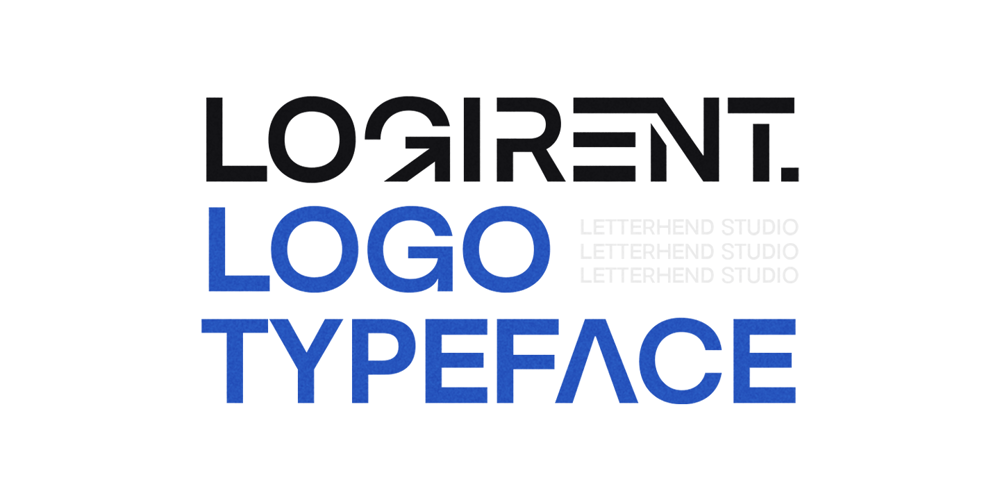
Logirent Font Family was designed by Hendry Juanda and published by Letterhend. Logirent contains 2 styles and family package options. Logirent is a unique typeface which is speciality made for a logotype. The customized ligatures is what makes this font unique. This type of font perfectly made to be applied especially in logo, headline, signage and the other various formal forms such as invitations, labels, logos, magazines, books, greeting / wedding cards, packaging, fashion, make up, stationery, novels, labels or any type of advertising purpose.Features : numbers and punctuation ligatures multilingual alternates / swashes and ligatures PUA encoded We highly recommend using a program that supports OpenType features and Glyphs panels like many of Adobe apps and Corel Draw, so you can see and access all Glyph variations. How to access opentype feature : letterhend.com/tutorials/using-opentype-feature-in-any-software/Email us to letterhend@gmail.com if you need something! Happy Designing!